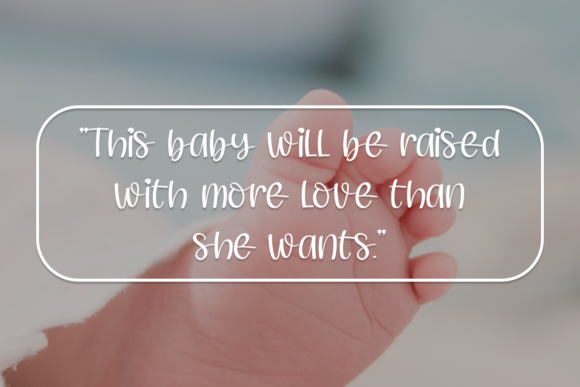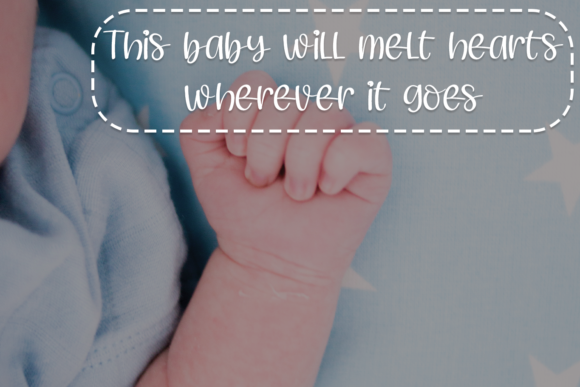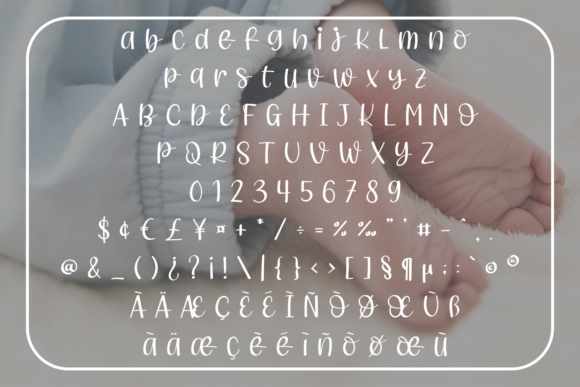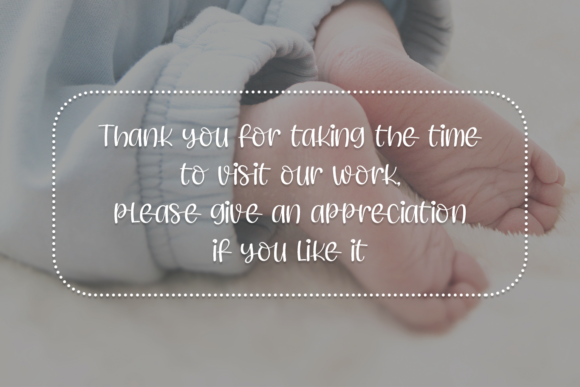
Discover the Magic of Baby Child Font: Elevate Your Creative Game
Have you ever found yourself scrolling through your Instagram feed, mesmerized by the beautiful handwritten fonts that seem to bring your favorite quotes and captions to life? I know I have! It’s those small moments of inspiration that spark our creativity and push us to try new things. Whether you’re a seasoned designer or a DIY enthusiast, there’s something about the unique charm of handwritten fonts that makes them irresistible.
Enter Baby Child Font, a chic and trendy handwritten font that’s about to become your new best friend. This versatile font is perfect for adding a touch of elegance to your social media posts, creating beautiful calligraphy scripts for DIY projects, or even designing custom invitations and gift tags. With its effortless, handwritten feel, Baby Child Font is sure to elevate your creative game and make your designs stand out from the crowd.
Baby Child Font Key Features
- Font Family: Baby Child Font is a unique, handwritten font designed for use in various applications, including logos, titles, and body text.
- Font Size: The font comes in a range of sizes, from 12pt to 72pt, making it suitable for various design projects.
- Resolution: The font is designed to work well at resolutions up to 300 DPI (Dots Per Inch), ensuring crisp and clear text output.
- Unique Characteristics: Baby Child Font features a whimsical, childlike feel, with irregular letterforms and playful flourishes that evoke a sense of innocence and wonder.
- Character Count: The font contains a wide range of characters, including uppercase and lowercase letters, numbers, and punctuation marks, making it a versatile choice for designers.
Baby Child Font Review
As a designer, I was excited to dive into the Baby Child Font, but my experience was a mixed bag. Here’s what I thought.
- Cute and playful aesthetic: The font has a whimsical feel that’s perfect for designs aimed at young children.
- Wide character set: The font includes a large set of characters, including numbers, punctuation, and special characters.
- Good legibility: The font is easy to read, even at smaller font sizes.
- Limited font weights: The font only comes in a few weights, which may limit its versatility.
- No italics: The font doesn’t include italics, which may be a drawback for some designers.
- May not be suitable for formal designs: The font’s playful aesthetic may not be suitable for formal or professional designs.
Overall, the Baby Child Font is a cute and playful font that’s perfect for designs aimed at young children. However, its limitations may make it less versatile for other types of designs. If you’re looking for a fun and engaging font for kids’ designs, this may be a good choice. But if you need a font with more weight options or italics, you may want to look elsewhere.
Tip: Use Baby Child Font for creative titles and headings to add a playful touch to your design.
Tip: Use Baby Child Font for custom typography projects, such as invitation designs or children’s book illustrations.
Tip: Use Baby Child Font for presentations and documents related to children or education.
Baby Child Font is suitable for:
- Invitation designs for children’s parties
- Education-related presentations and documents
- Playful titles and headings
Remember to use Baby Child Font in moderation to avoid overwhelming your design.